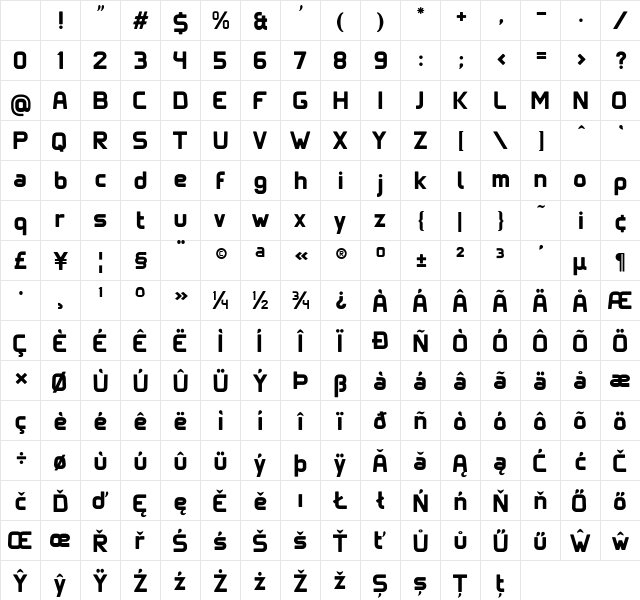
Clipangle is a composed and adaptable typeface that performs quietly and consistently across a wide range of design contexts. Its bold stroke weight gives it real presence on the page.